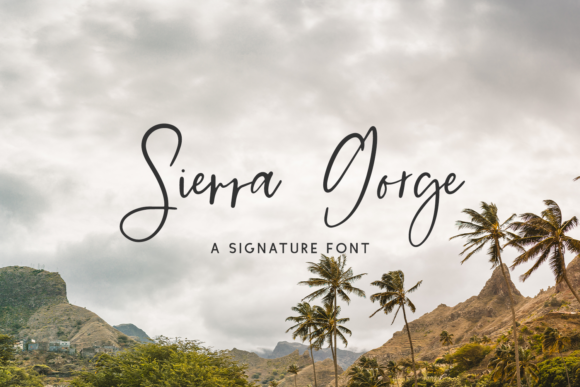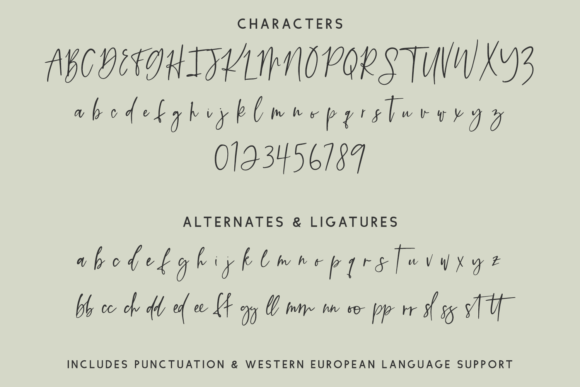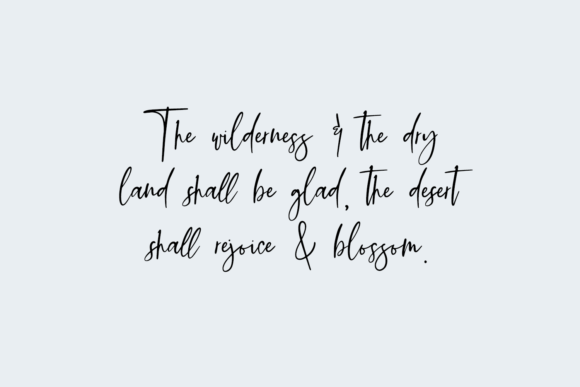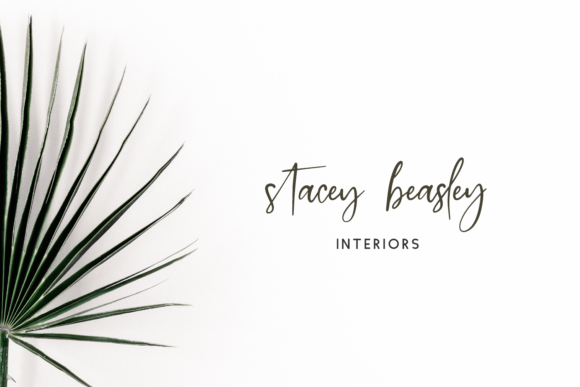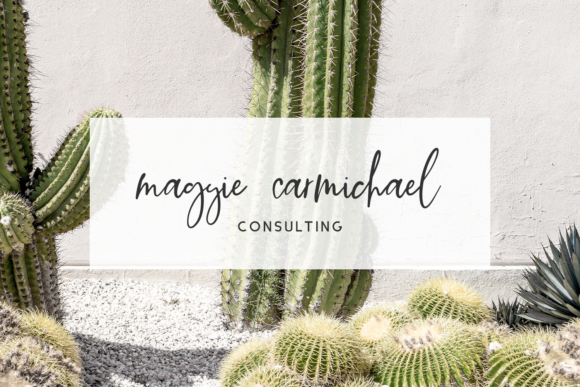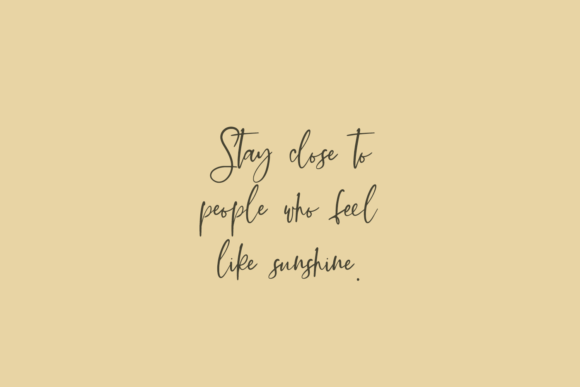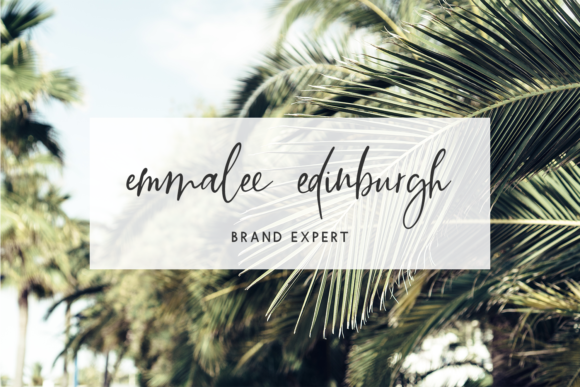
About Sierra Gorge Script Font
Sierra Gorge Script is a sweet and friendly handwritten font. Its natural and unique style makes it incredibly fitting to a large pool of designs. This font is PUA encoded which means you can access all of the glyphs and swashes with ease!Â